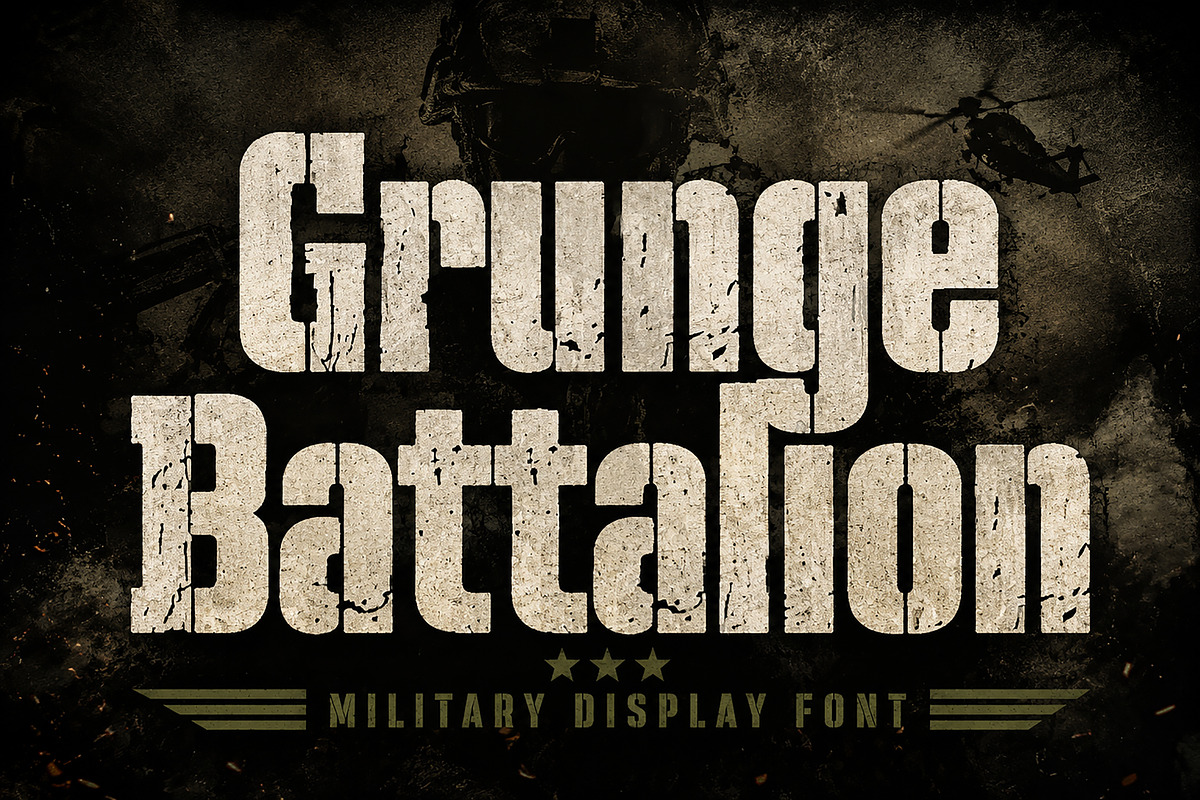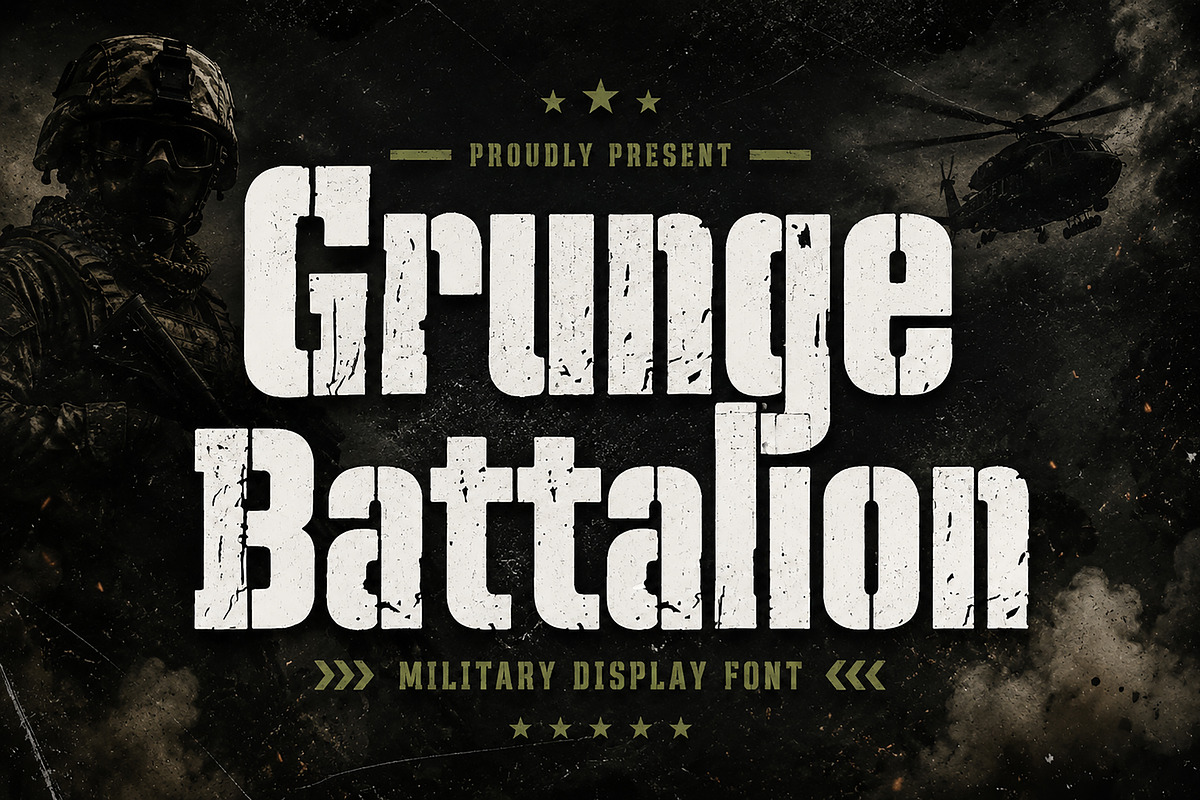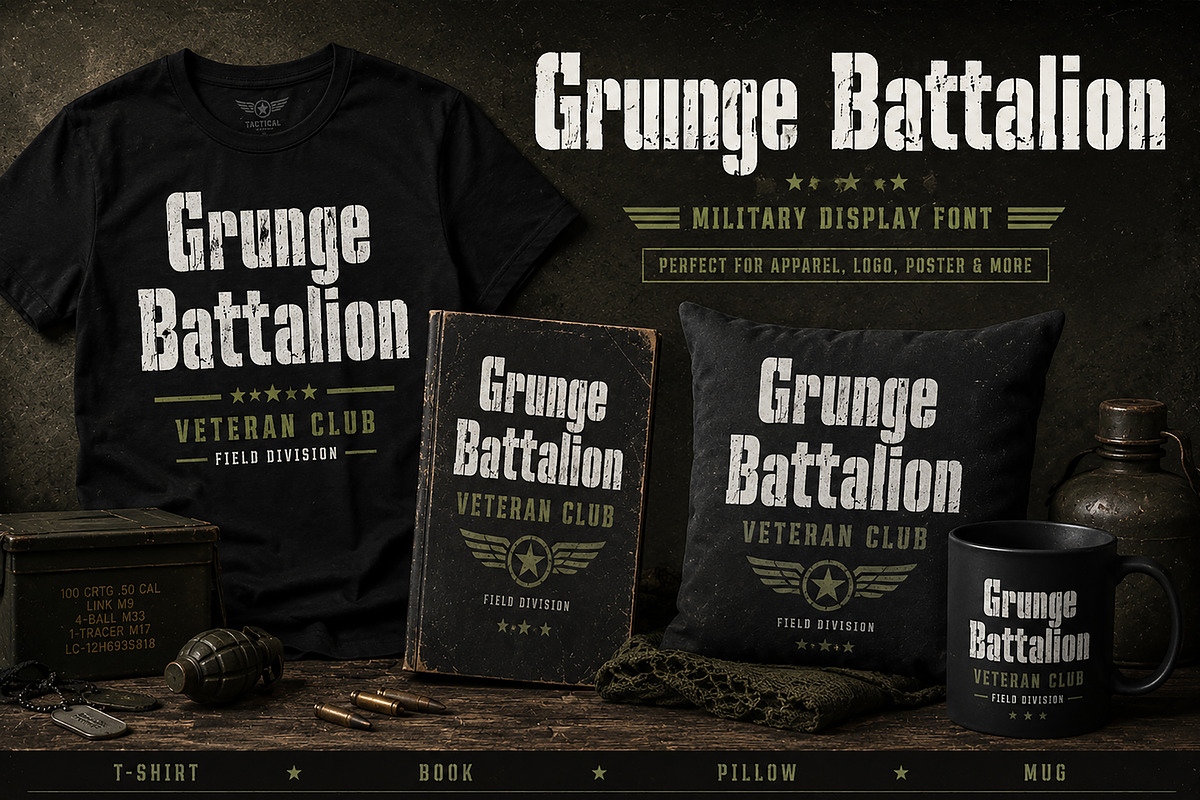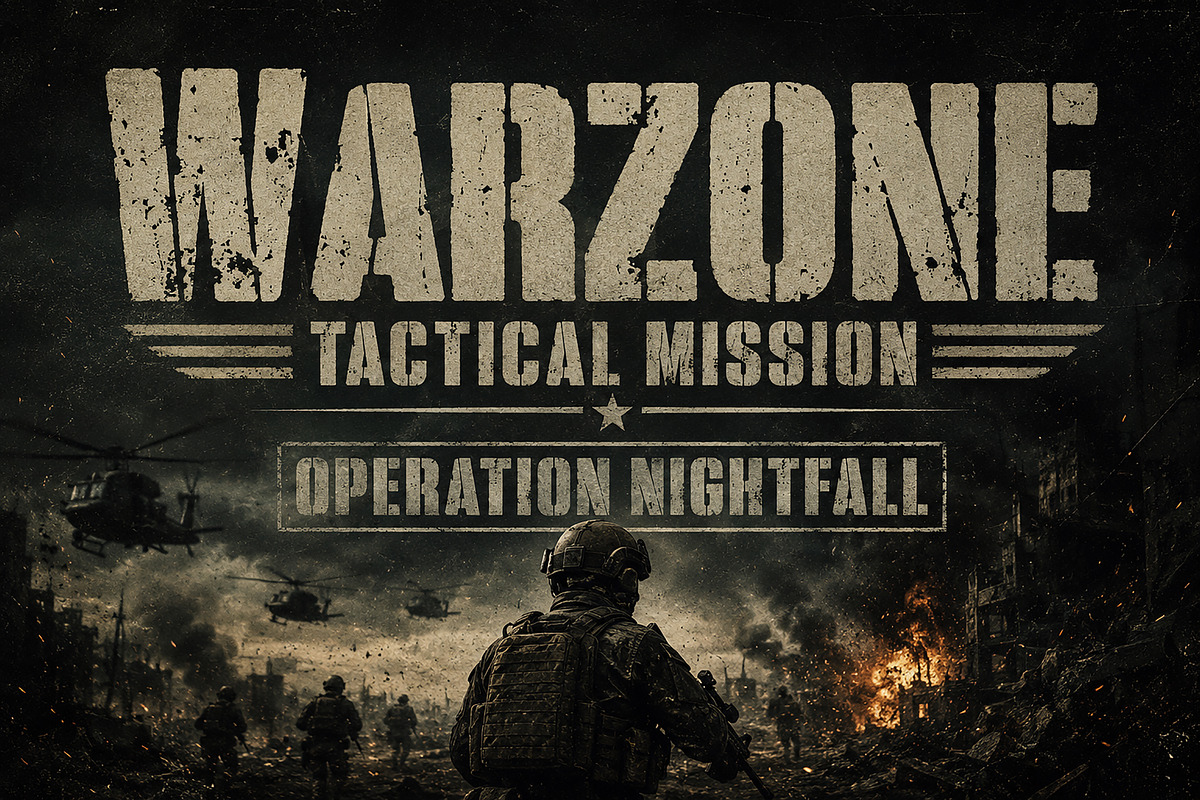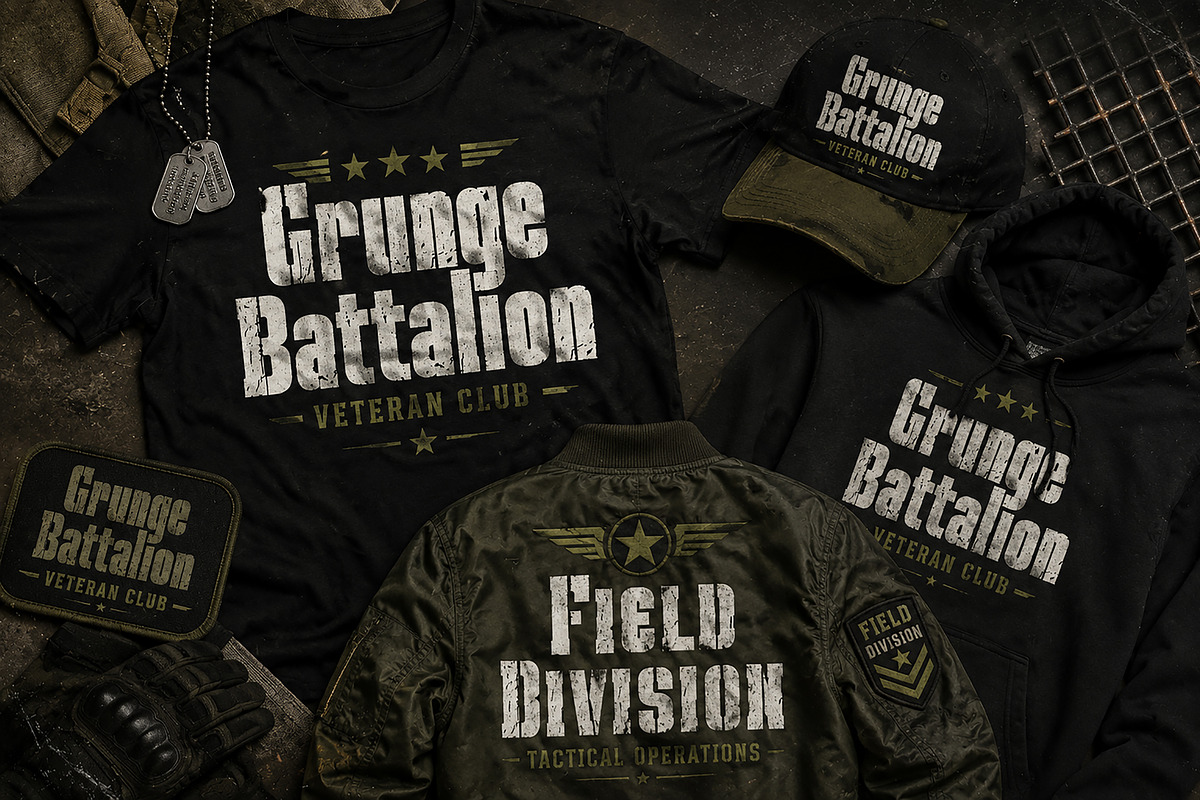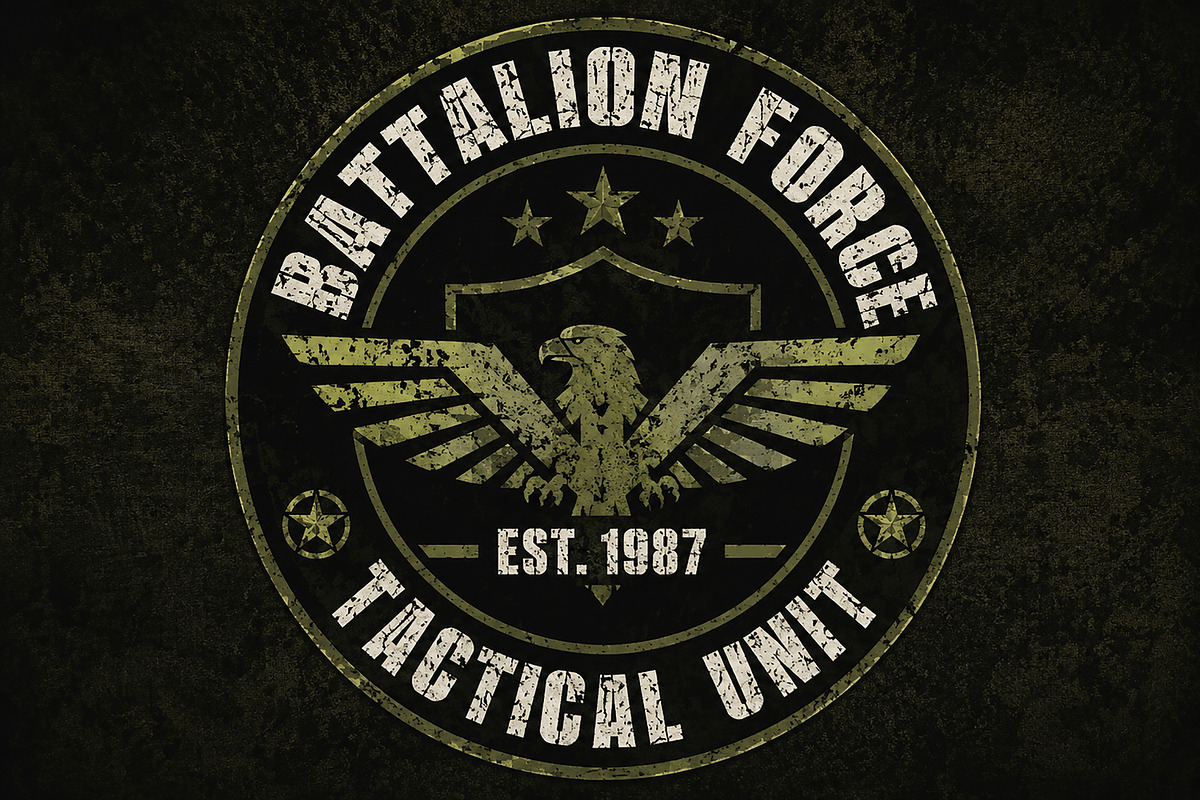
Grunge Battalion
Grunge Battalion – Military Display Font
Grunge Battalion is a bold military-inspired display font with a rugged distressed texture and powerful tactical style. Designed with strong stencil-inspired letterforms, this font delivers an authentic army, grunge, and battlefield aesthetic perfect for bold visual projects.
Its rough worn texture and industrial military character make it ideal for posters, apparel branding, logo badges, gaming graphics, tactical merchandise, packaging, streetwear, and action-themed designs. Whether you’re creating a cinematic war poster, vintage military badge, or edgy urban apparel, Grunge Battalion brings a fearless and commanding look to your typography.
This font combines grunge energy with strong military structure, making it a perfect choice for designers who want impactful typography with an aggressive vintage attitude.
Military Posters
Tactical Branding
Army Badge & Emblems
Streetwear Apparel
Gaming Design
Vintage Grunge Logos
Action Movie Titles
Merchandise Design
Packaging & Labels
YouTube Thumbnails
Bold Military Style
Distressed Grunge Texture
Strong Display Letterforms
Stencil-Inspired Design
Uppercase Characters